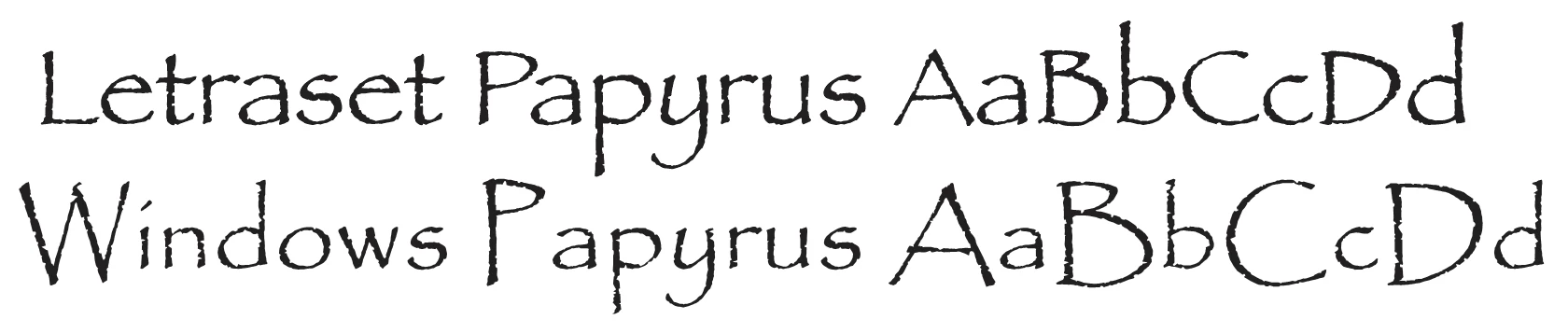
Replacement font needed
I need an equivalent to Papyrus bold. Suggestions?
Thank you for reaching us. I checked and found some fonts Similar to Papyrus through https://design.tutsplus.com/articles/15-fonts-similar-to-papyrus--cms-37004. Please let me know if this helps you.
I didn't know there was a bold version of Papyrus. I've only seen two variants of it, the original 1983 Letraset cut by Chris Costello and the crummy looking version Microsoft commonly bundles into the Windows OS and MS Office products.
No other typefaces look similar to Papyrus unless they're copycat knock-offs (such as URW "Pallas").
These days whenever Papyrus is mentioned I can't help but think of the hilarious SNL video sketch "Papyrus" starring Ryan Gosling. The whole thing is brilliant but the end of it had me laughing hard. Gosling's character personifies how I feel when I see default Arial on outdoor signs, often squeezed and stretched to fit into a tight space. It really gets on my nerves at times.
Oh man, Bobby, that is absolutely great!
I did find a Papyrus bold which I am using to resurrect a very old project. I know I've been warned off Papyrus from several directions but in this case, I needed it. LOL I'll never use it again, I promise.
I actually don't mind seeing Papyrus used in graphics work if the use is appropriate. But it takes at least some creative talent regarding type to know what "feels" right. Yet Papyrus is very commonly available as a system font. So we have a combination of so many people with no design sense misusing Papyrus and they're working with a version of Papyrus that doesn't in my opinion look as good (or space as well) as the original 1983 version. The one bundled into the Windows OS is very different from the Letraset version when compared side by side. Back in the early 1990's I liked Papyrus quite a bit. I even bought a Letraset "Fontek" version of it sold as a retail item in computing stores; it came on a 1.44MB floppy disc.
Thank you for reaching us. I checked and found some fonts Similar to Papyrus through https://design.tutsplus.com/articles/15-fonts-similar-to-papyrus--cms-37004. Please let me know if this helps you.
I found one.